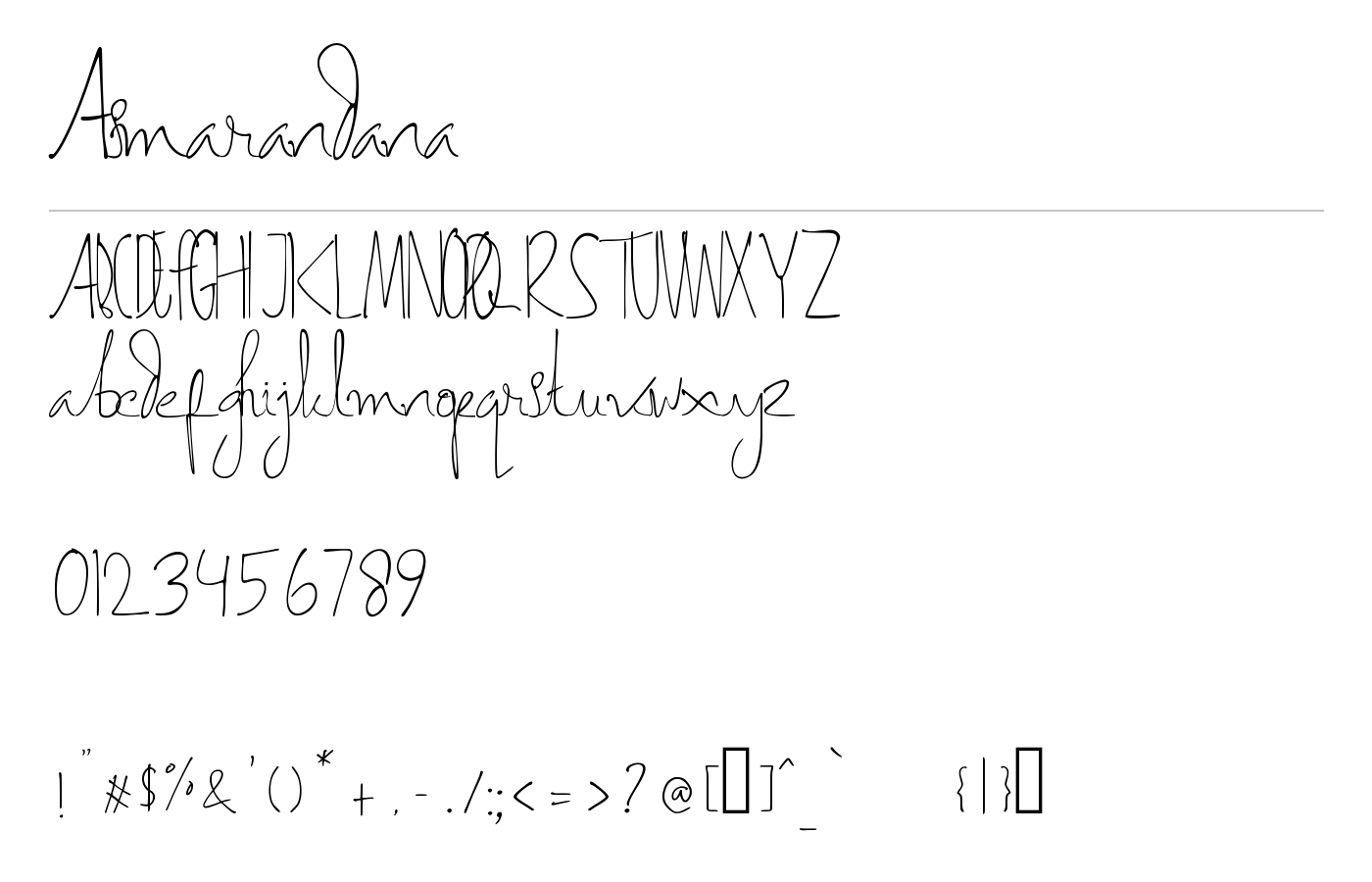
Asmarandana is a delicate, handwritten script font with a tall, narrow structure and light stroke weight, giving it an airy, whimsical feel. Its irregular, flowing letterforms and varied line heights bring a personal, artistic touch ideal for creative and informal designs. This font works well for invitations, branding, and editorial projects that seek a unique, expressive charm.
Asmarandana Font
About Asmarandana Font